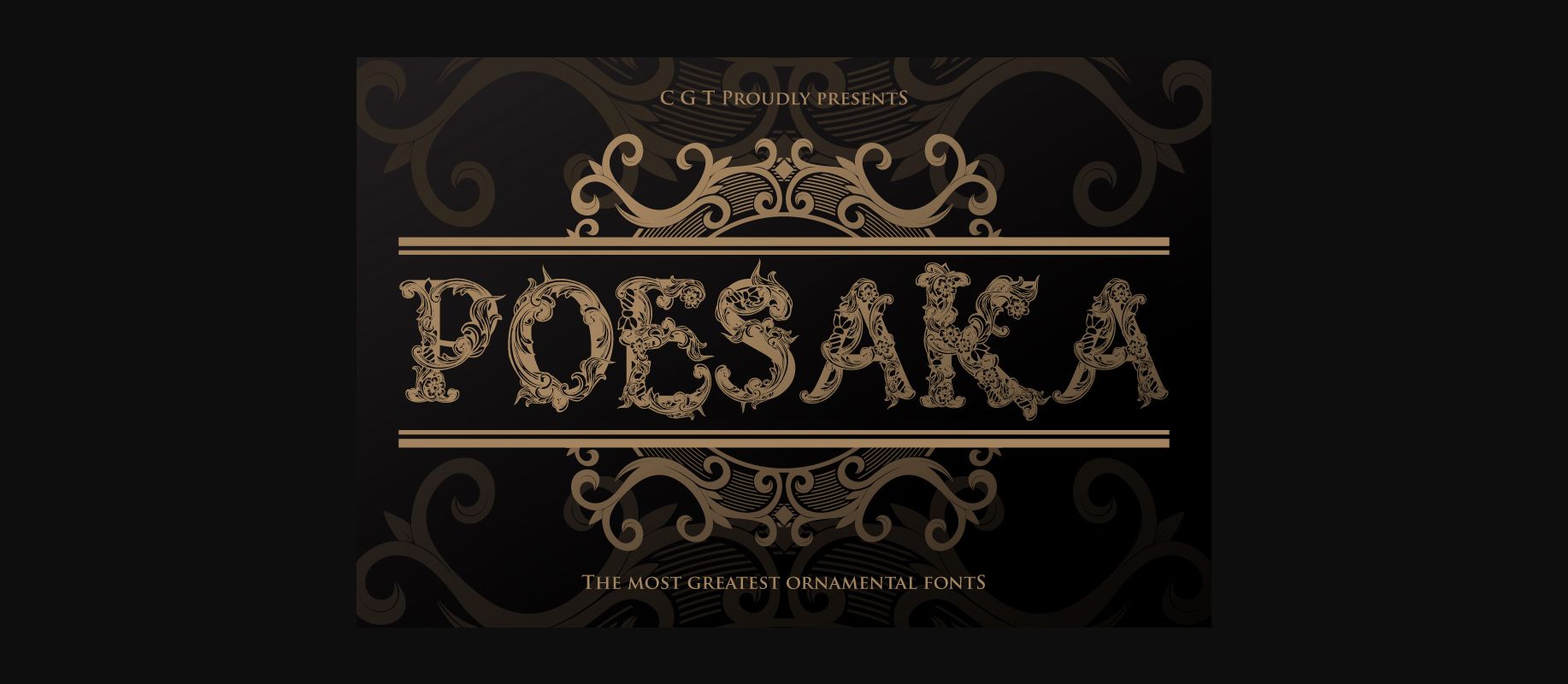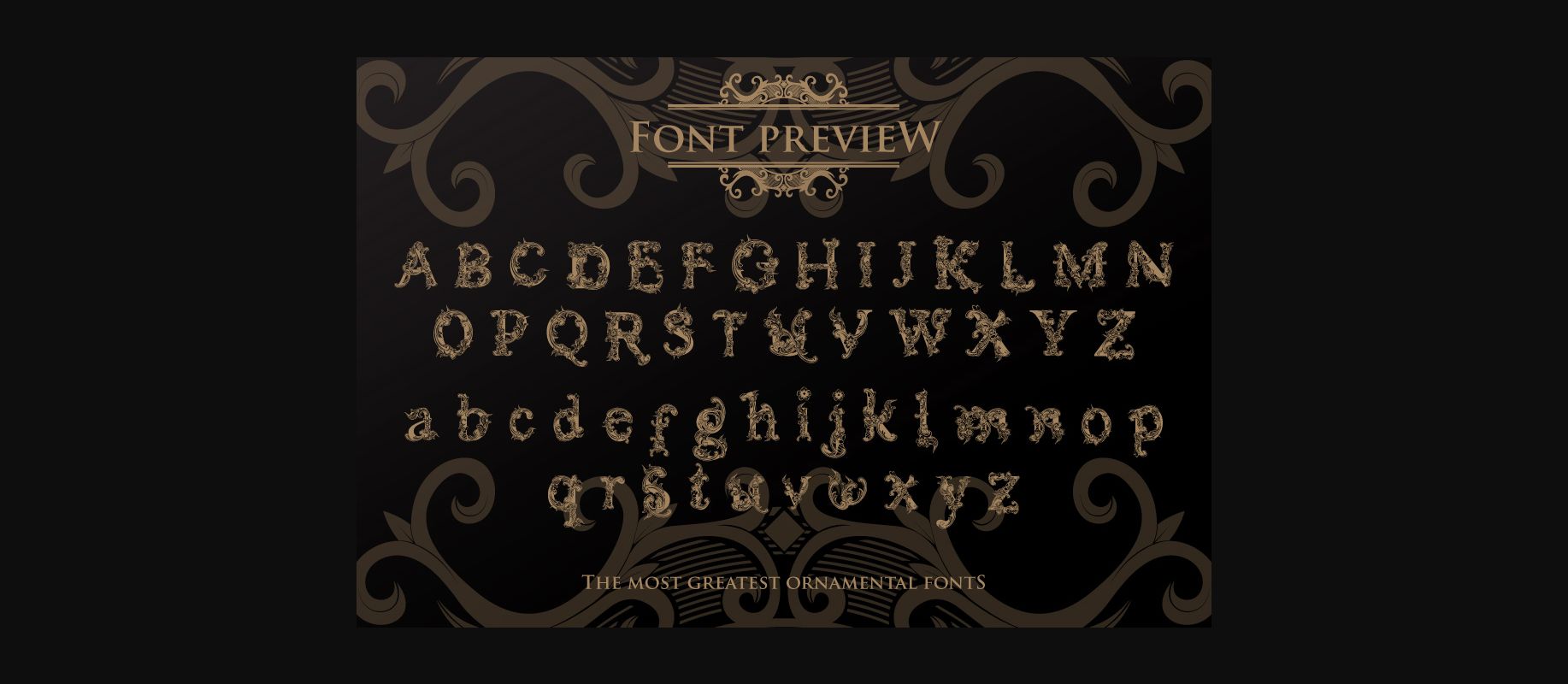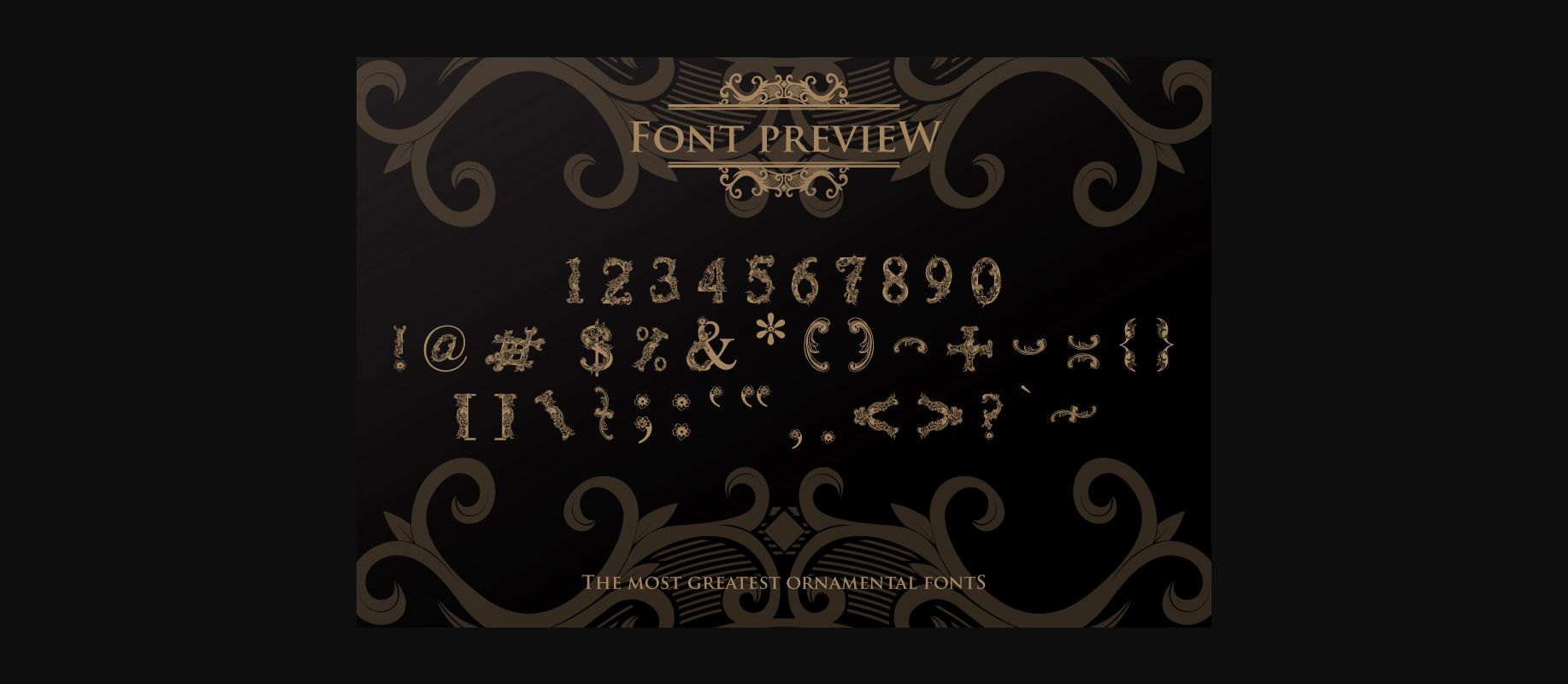
Poesaka Font
About Poesaka Font
Poesaka is an incredibly unique and vintage dingbats font. This beautiful font is suitable to a wide range of designs! Bring joy to your most favorite projects with Poesaka!